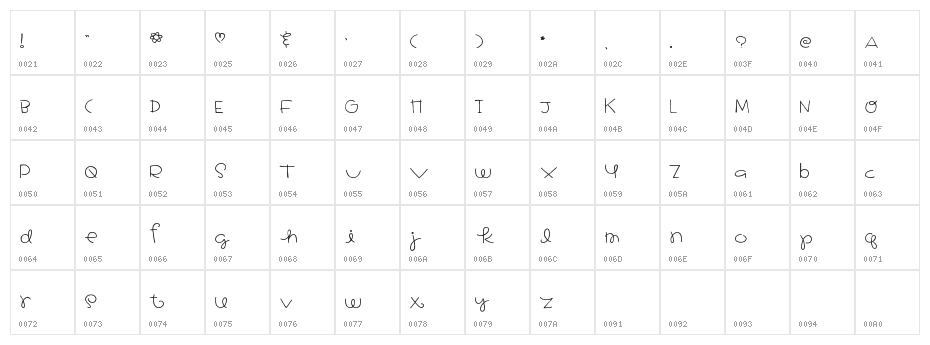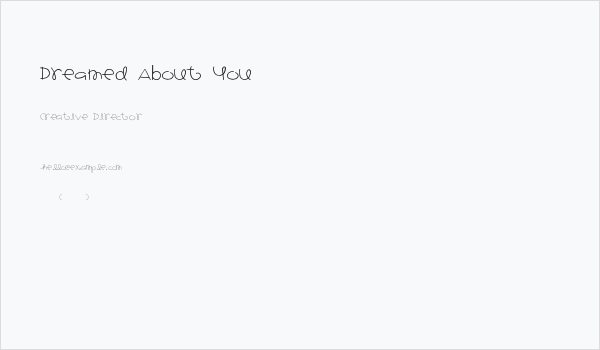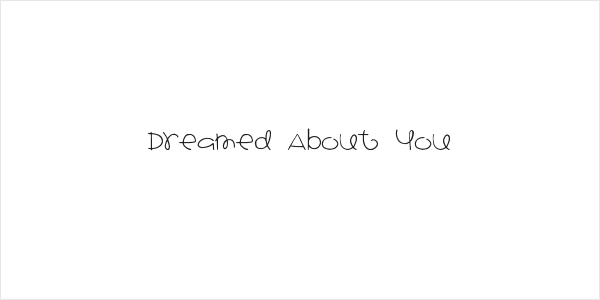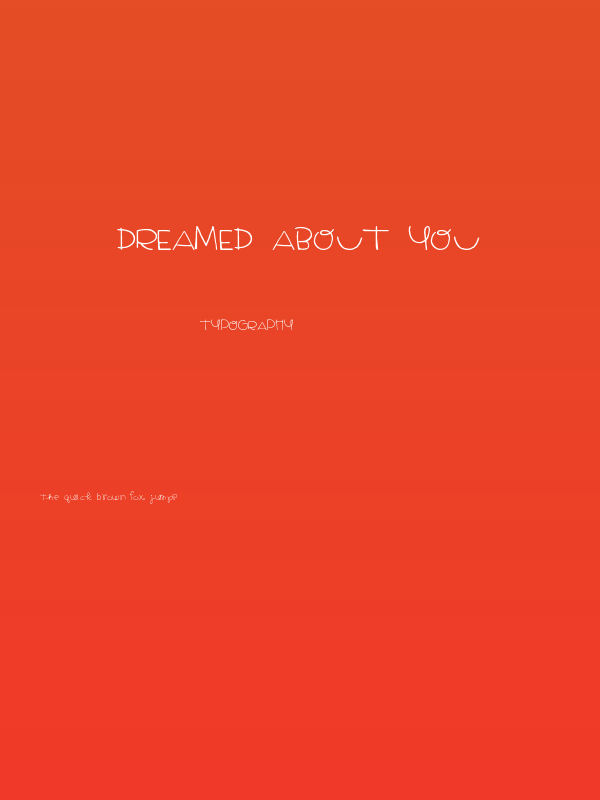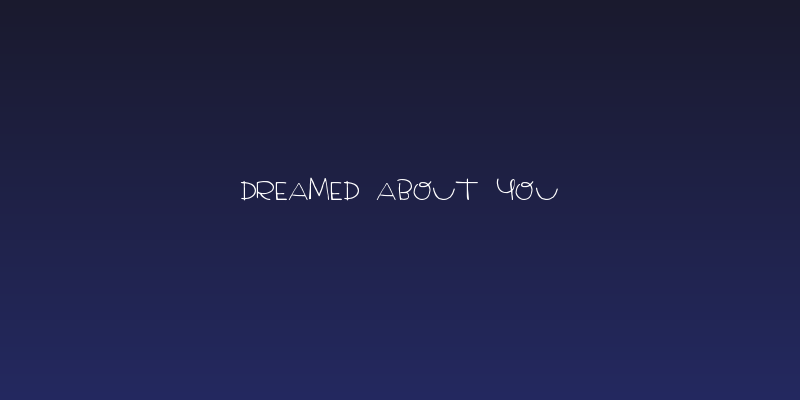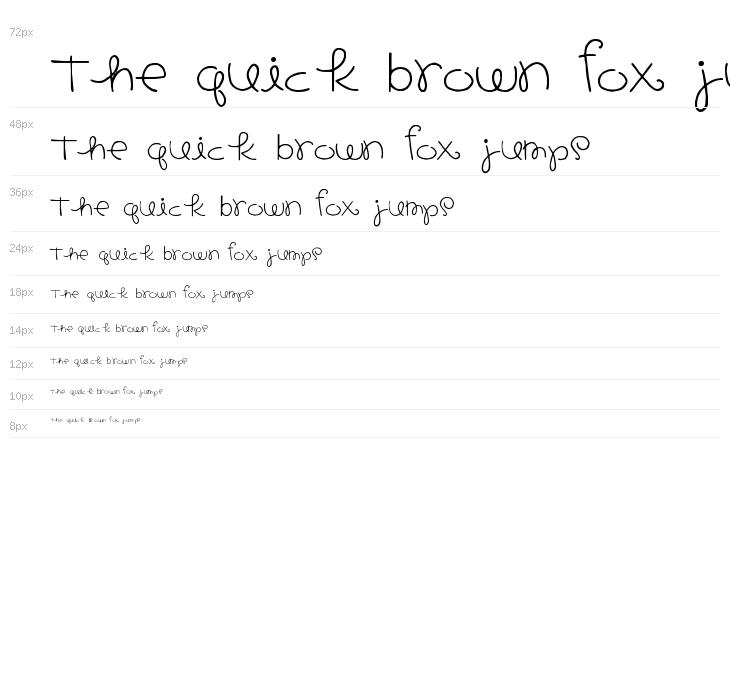
Dreamed About You Font
Dreamed About You Description
This playful and whimsical font features a handwritten style with a casual and friendly appearance. The characters are slightly irregular, giving it a personal and informal touch. The uppercase letters are tall and narrow, while the lowercase letters have a more rounded and flowing form. The font includes a variety of special characters, adding to its versatility. The strokes are consistent in width, providing a uniform look across all characters. This font is ideal for projects that require a touch of creativity and individuality.
| Overall Style | Whimsical |
| Use Case | Headlines, Creative projects, Informal text. |
| Proposed Projects | Greeting cards, children's books, personal blogs, creative invitations. |